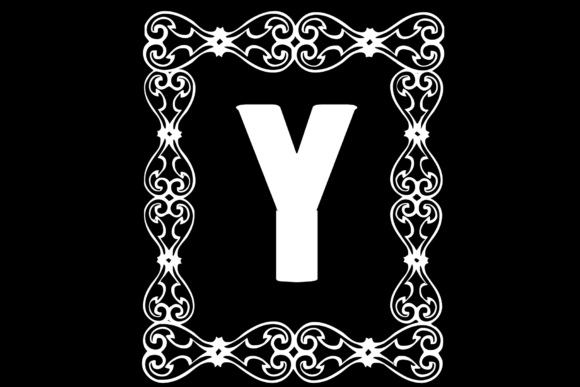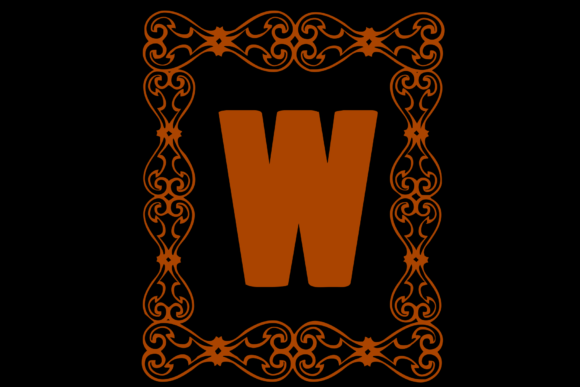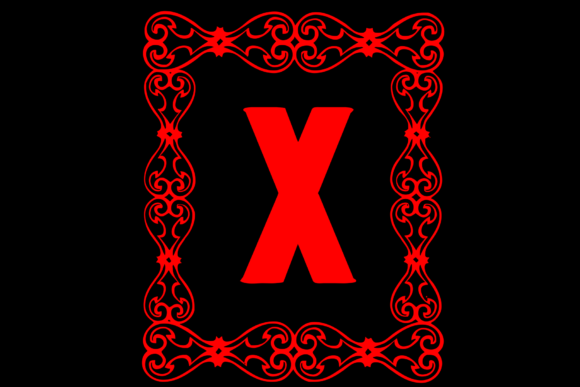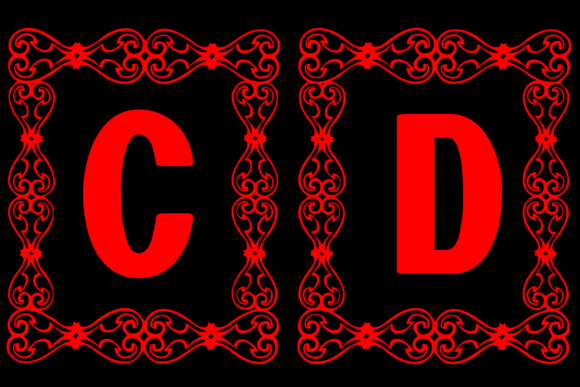
Bruce Ornament Font: Elevate Your Designs with Whimsical Charm
Are you a designer or crafter looking for a unique and versatile font to add a touch of magic to your projects? Look no further than the Bruce Ornament Font, a set of three naive decorated initials that are sure to captivate your audience. In this article, we’ll dive into the enchanting world of Bruce Ornament Font and explore its endless creative possibilities.
Aesthetic Appeal
The Bruce Ornament Font is an ideal choice for book chapter headings, invitation cards, holiday artworks, and children’s literature. Its artful design enhances the beauty of any project, adding a touch of sophistication and elegance. The three decorated initials are bursting with versatility, allowing you to experiment with various design styles and themes.
Design Features
The Bruce Ornament Font boasts several design features that make it a standout choice for designers and crafters:
- Naive Decorated Initials: The three initials are intricately designed with a naive, whimsical style that adds a touch of charm to any project.
- Versatile: The font can be used for various design projects, from book chapter headings to invitation cards, holiday artworks, and children’s literature.
- Elegant and Sophisticated: The font’s design is both elegant and sophisticated, making it perfect for projects that require a touch of refinement.
Creative Possibilities
The Bruce Ornament Font opens up a realm of creative possibilities, allowing you to elevate your designs to much greater heights. Here are a few ideas to get you started:
- Book Chapter Headings: Use the Bruce Ornament Font to add a touch of elegance to your book chapter headings, making your book stand out from the rest.
- Invitation Cards: Create beautiful and unique invitation cards for special occasions, such as weddings, birthday parties, and holiday gatherings.
- Holiday Artworks: Add a touch of festive cheer to your holiday artworks, such as Christmas cards, Halloween decorations, and Easter eggs.
- Children’s Literature: Bring your children’s book to life with the Bruce Ornament Font, adding a touch of whimsy and wonder to your illustrations and chapter headings.
Here are a few tips for designers and crafters looking to get the most out of the Bruce Ornament Font:
- Experiment with Colors: Try pairing the Bruce Ornament Font with different colors and textures to create a unique and eye-catching design.
- Mix and Match: Combine the Bruce Ornament Font with other fonts and design elements to create a truly unique and personalized design.
- Play with Size and Scale: Experiment with different font sizes and scales to add visual interest and hierarchy to your design.
| Feature | Benefit |
| Naive Decorated Initials | Adds a touch of charm and whimsy to any project |
| Versatile | Suitable for various design projects, from book chapter headings to invitation cards and holiday artworks |
| Elegant and Sophisticated | Adds a touch of refinement and elegance to any project |